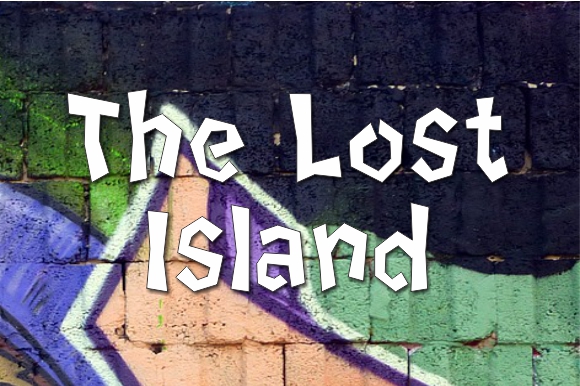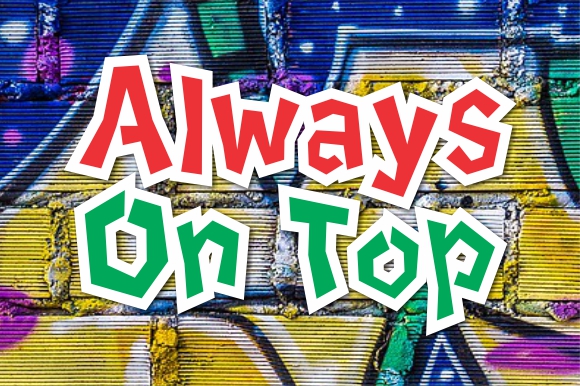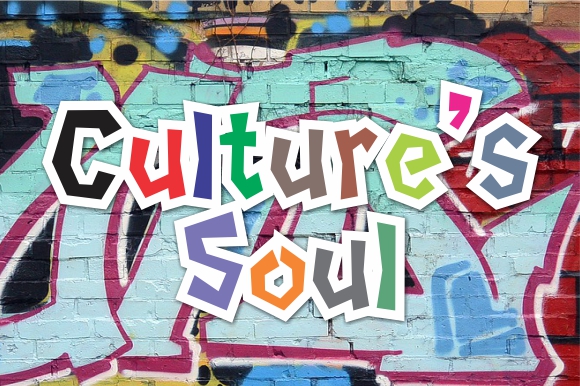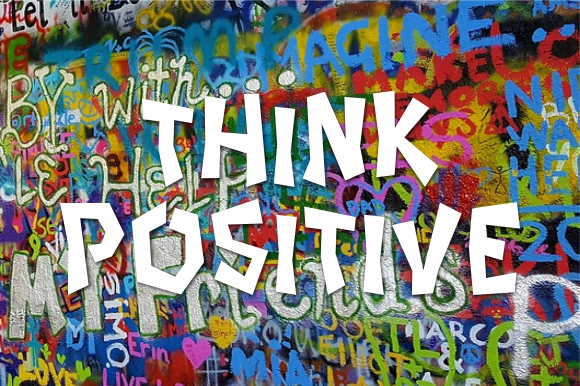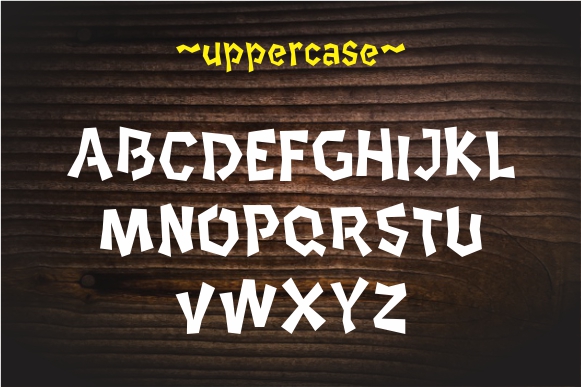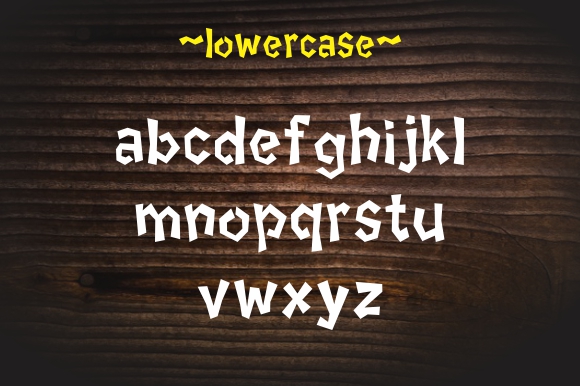
Introducing Azmatt Font: A Unique Blend of Retro and Adventurous Typography
In the world of typography, fonts play a crucial role in conveying messages, evoking emotions, and creating visual identities. For designers and crafters, finding the right font can make all the difference in bringing their creative projects to life. If you’re on the hunt for a font that combines retro charm with an adventurous spirit, look no further than Azmatt Font. In this article, we’ll dive into the world of Azmatt, exploring its unique features, uses, and what makes it a standout in the realm of typography.
What is Azmatt Font?
Azmatt is a unique, blocky typeface that has captured the hearts of designers and crafters alike. This font is great for title sequences and displays, and its distinctive style combines retro and adventurous typographic designs. With its bold, chunky letters, Azmatt exudes a sense of nostalgia while also conveying a sense of excitement and energy.
Key Features of Azmatt Font
So, what sets Azmatt apart from other fonts? Here are some of its key features:
- Blocky Design: Azmatt’s blocky design gives it a sturdy, rugged feel that’s perfect for creating bold statements.
- Retro Aesthetic: The font’s retro aesthetic is reminiscent of classic video games, sci-fi movies, and vintage posters.
- Adventurous Spirit: Azmatt’s adventurous typographic design makes it ideal for projects that require a sense of excitement and energy.
- High Versatility: This font can be used for a wide range of projects, from title sequences and displays to logos, branding, and more.
Uses of Azmatt Font
Azmatt’s versatility makes it suitable for various design projects, including:
- Title Sequences: Use Azmatt to create eye-catching title sequences for movies, TV shows, or video games.
- Logos and Branding: Azmatt’s bold, blocky design makes it perfect for creating logos and branding materials for companies that want to convey a sense of adventure and excitement.
- Posters and Flyers: Create bold, attention-grabbing posters and flyers with Azmatt’s retro aesthetic.
- Digital Graphics: Use Azmatt to create digital graphics, such as social media posts, blog headers, and more.
Tips for Using Azmatt Font
To get the most out of Azmatt, here are some tips to keep in mind:
- Experiment with Colors: Azmatt looks great in bold, bright colors. Experiment with different color schemes to find the perfect combination for your project.
- Play with Texture: Add texture to your design by combining Azmatt with different textures, such as wood, metal, or stone.
- Mix and Match: Combine Azmatt with other fonts to create a unique, eye-catching typographic style.
Azmatt Font is a unique, blocky typeface that combines retro and adventurous typographic designs. With its bold, chunky letters and high versatility, Azmatt is perfect for designers and crafters looking to add a touch of excitement and energy to their projects. Whether you’re creating title sequences, logos, posters, or digital graphics, Azmatt is sure to make a statement. So why not give Azmatt a try and see how it can elevate your design projects?